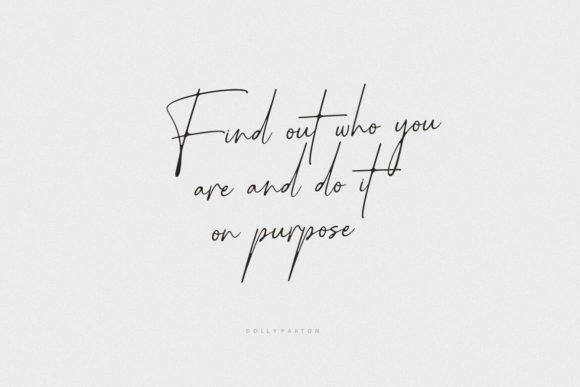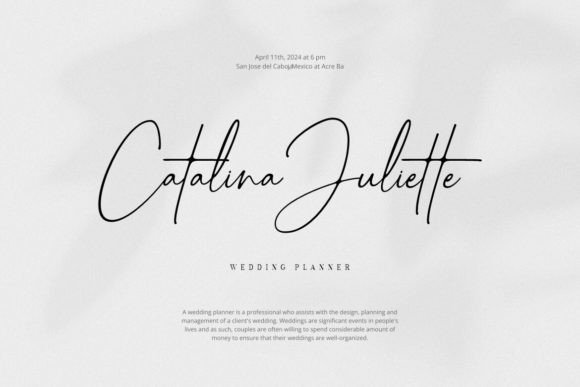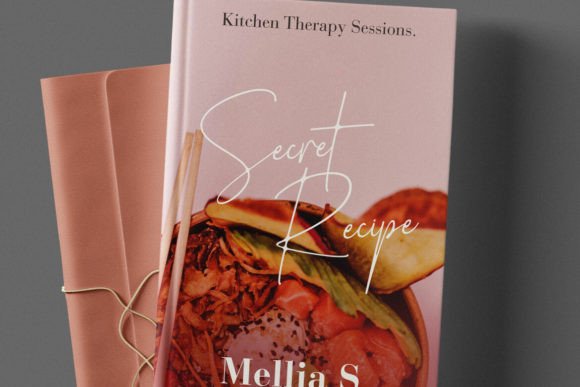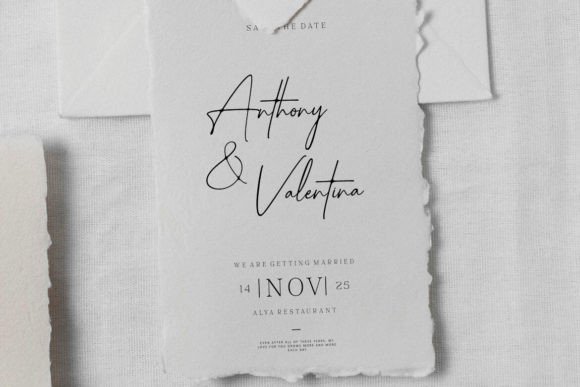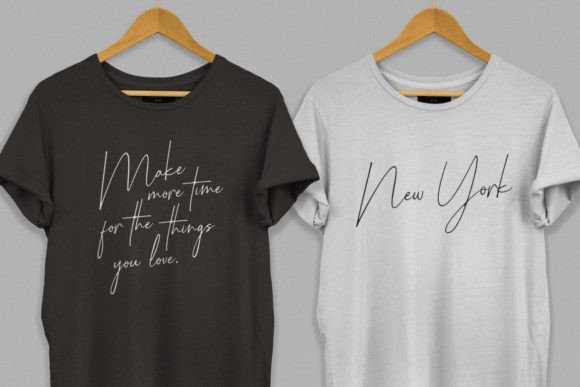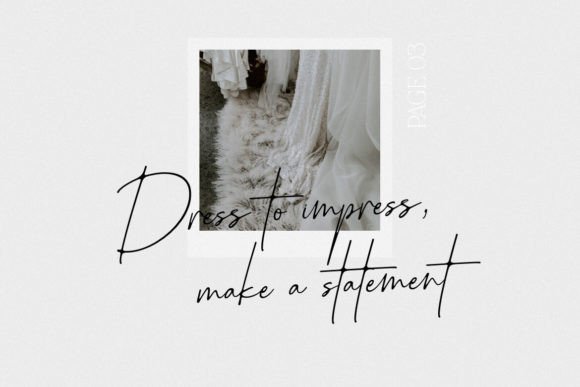
The Hunt for the Perfect Font: Discovering Gracelyn Handwriting Font
I still remember the frustration of scrolling through font after font, searching for the perfect one to bring my design project to life. It was for a client’s wedding invitation, and I wanted something that exuded warmth, elegance, and a touch of whimsy. That’s when I stumbled upon Gracelyn Font, a modern, casually feminine handwritten font that instantly captured my heart. In this article, I’ll share my experience with Gracelyn, its features, and how to make the most of it in your designs.
An Honest Review of Gracelyn Font
What I Love About Gracelyn Font
- ✨ Beautifully crafted letters: Each letter in Gracelyn is carefully designed to be unique and visually appealing, making it perfect for projects that require a personal touch.
- ✅ Extensive language support: With support for multiple languages, Gracelyn is an excellent choice for global projects or those with diverse audiences.
- ✅ Full range of characters: The font includes a complete set of uppercase and lowercase letters, numbers, punctuation, and ligature characters, giving you plenty of creative freedom.
- ✨ Versatile and adaptable: From quotes and menus to invitations and business cards, Gracelyn’s versatility makes it suitable for a wide range of design projects.
While Gracelyn is an excellent font, there are a few minor considerations to keep in mind:
- ⚠️ Legibility at small sizes: As with many handwritten fonts, Gracelyn may lose some legibility when used at very small sizes. It’s best suited for projects where the text will be displayed at a moderate to large size.
- 🤔 Overuse of ligatures: While ligatures can add a touch of elegance to your text, be mindful not to overuse them, as this can make the text harder to read.
The Story Behind Gracelyn Font
Gracelyn Font was designed with the intention of creating a beautiful, everyday script font that could be used in a variety of creative projects. Inspired by the elegance of handwritten letters and the casualness of modern scripts, Gracelyn’s designer aimed to craft a font that was both feminine and versatile. While the exact story behind Gracelyn’s creation may be unknown, its design reflects a deep understanding of typography and a passion for creating something truly special.
Q: What type of projects is Gracelyn Font best suited for?
A: Gracelyn Font is incredibly versatile and can be used for a wide range of projects, including quotes, menus, taglines, flyers, posters, invitations, greeting cards, business cards, and more.
Q: Does Gracelyn Font support OpenType features?
A: Yes, Gracelyn Font comes with OpenType features, including ligatures, which can enhance the appearance of your text.
Q: Is Gracelyn Font easy to read?
A: Gracelyn Font is designed to be legible, especially at moderate to large sizes. However, as with any handwritten font, it may be less readable at very small sizes.